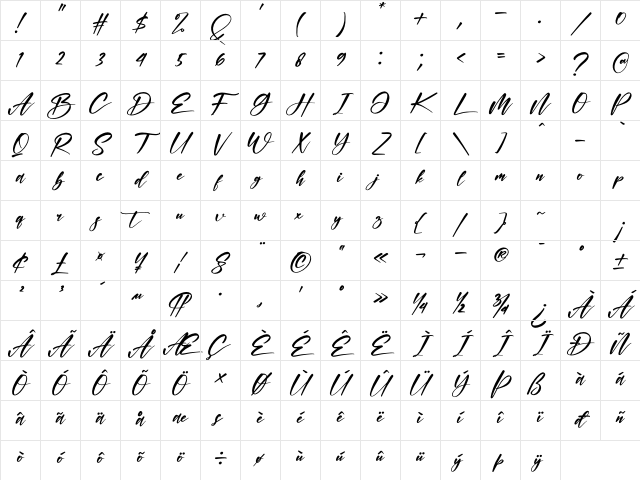
Dita & Rusta is a composed and adaptable typeface that performs quietly and consistently across a wide range of design contexts.
Pro Tip: Use Dita & Rusta in both headline and body roles to test its range before committing to a single application.